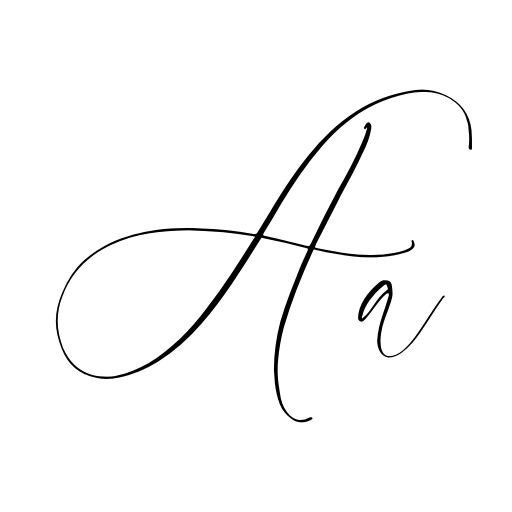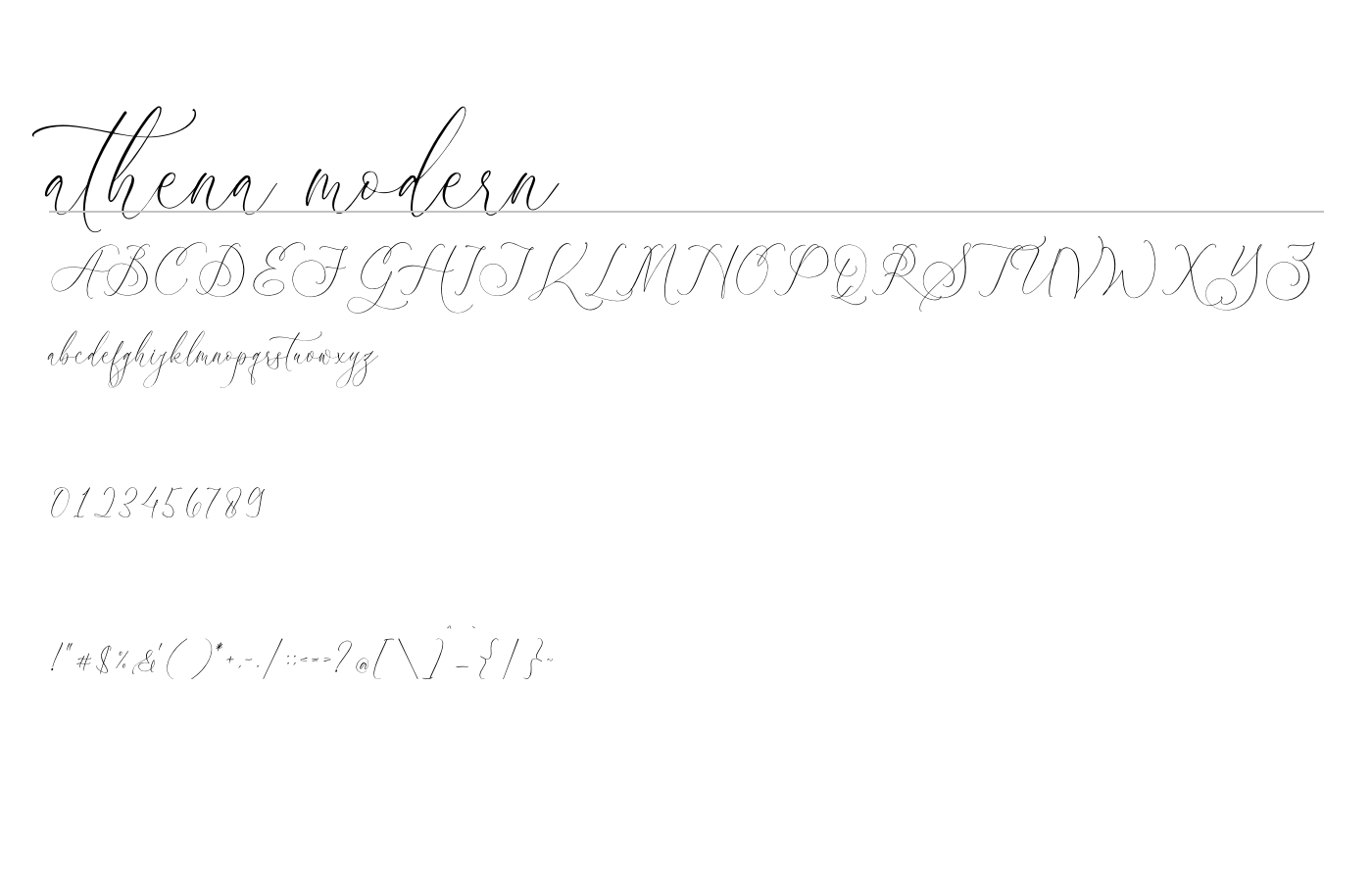
Athena Modern is a delicate, script-style font characterized by its thin, flowing lines and elegant, handwritten feel. Its high-contrast, wispy strokes and graceful curves make it perfect for luxury branding, wedding invitations, and sophisticated editorial designs that seek a refined and personal touch. This font shines in contexts where elegance and lightness are key, enhancing any project with a modern yet timeless charm.